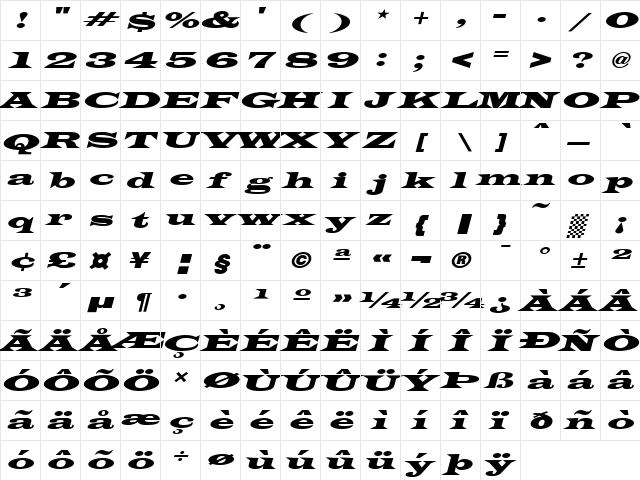
Latin-WideExtObl Normal
Design Context for Latin-WideExtObl Typeface
Latin-WideExtObl takes a measured approach to typography — its balanced proportions and neutral character make it a reliable workhorse for both digital and print work.